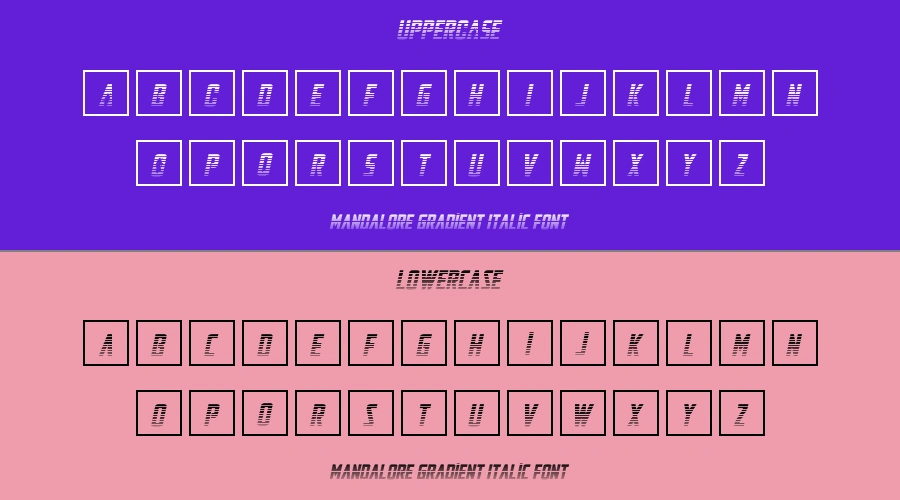
About Mandalore Gradient Italic Font
Mandalore Gradient Italic Font embodies typographic excellence through its masterful combination of alternates and integrity. Created for legal documents, this typeface delivers exceptional consistency and technical merit across all applications. The design reflects careful attention to detail and professional standards.
Advanced capabilities include distinctive ornamental details and versatile discretionary ligatures, giving designers creative control. When used in formal invitations, Mandalore Gradient Italic Font exhibits remarkable headline impact. The harmonious balance between serif length and technical tradition sets this typeface apart.